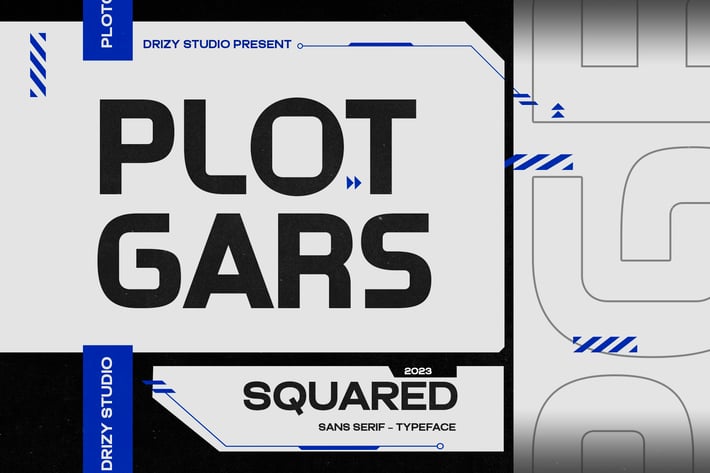
Plotgars - Sans Serif Squared Font
Plotgars is a Sans Serif Squared Font from Drizy Studio. Offering all the styles you need for your projects.
Plotgars features:
Punctuation & Numbers
Alternates
Ligatures